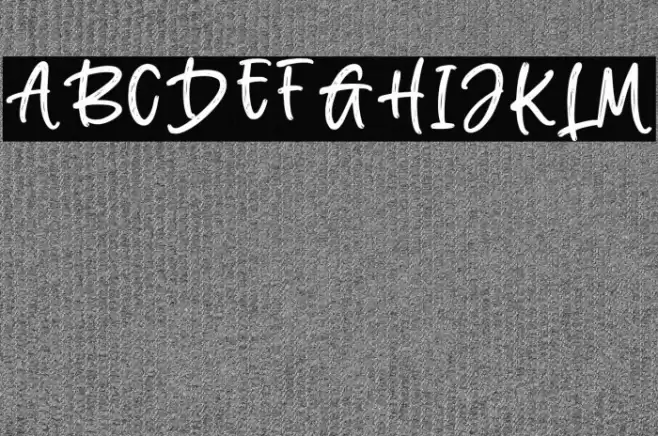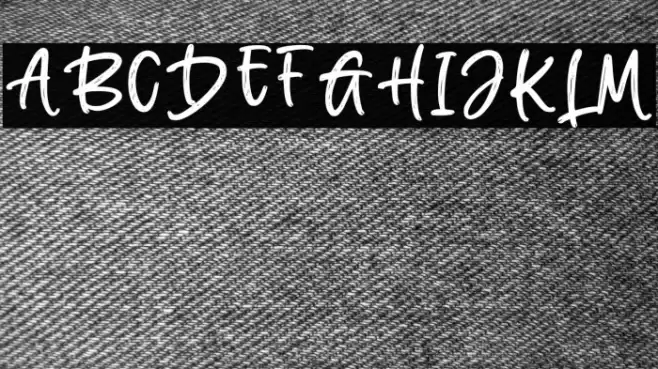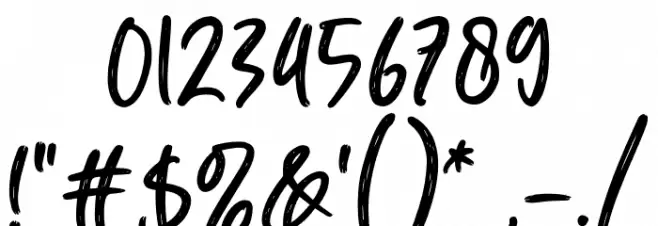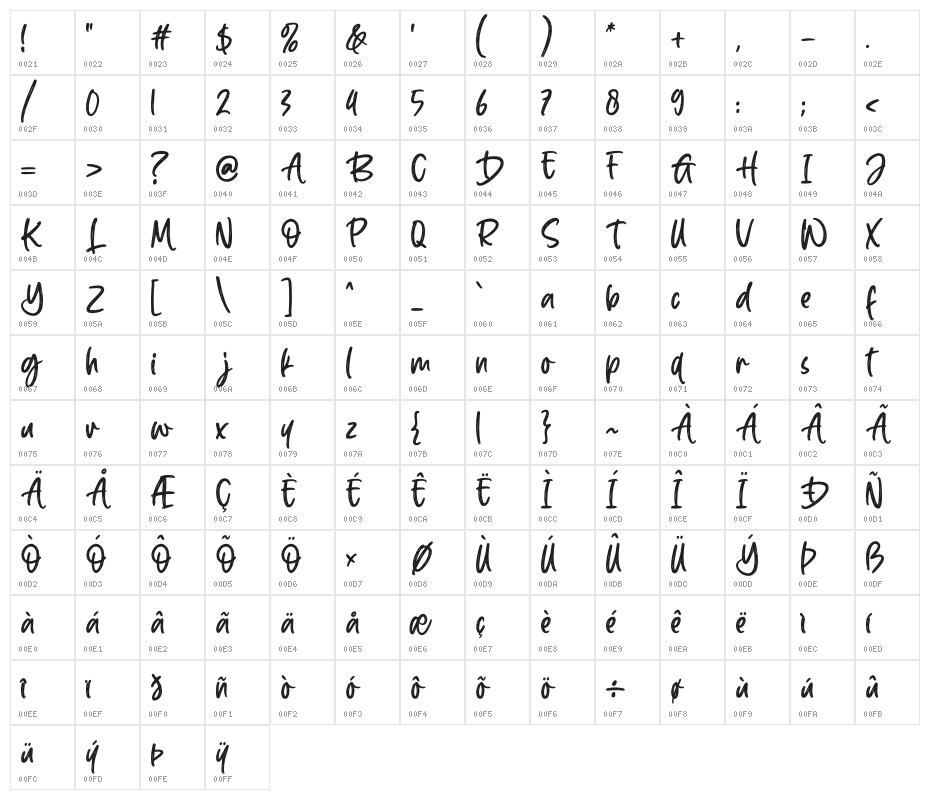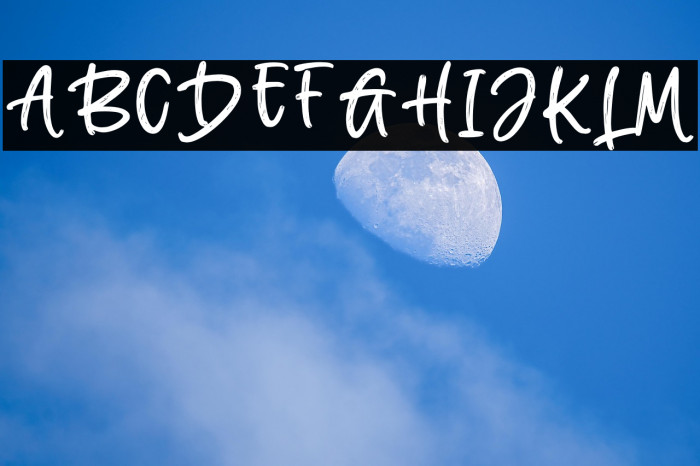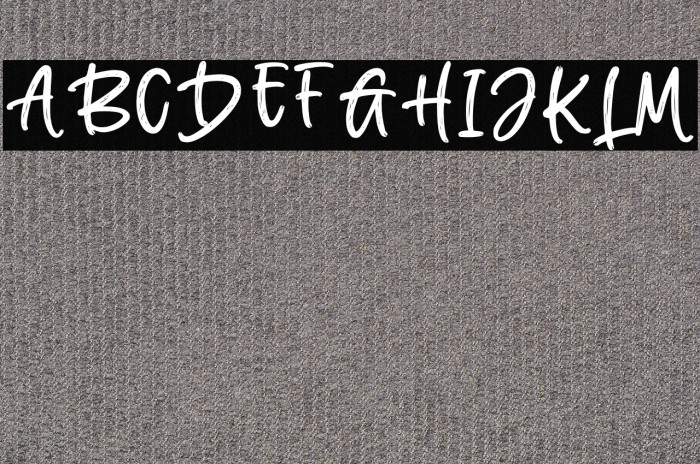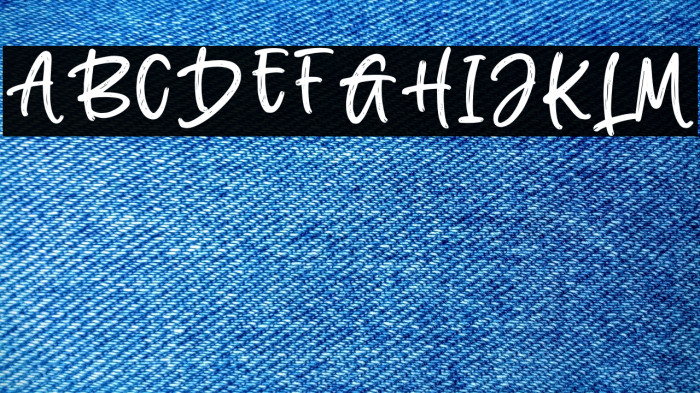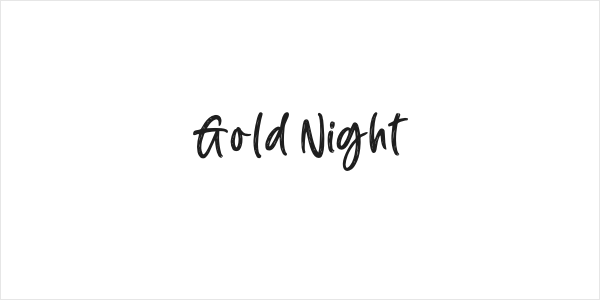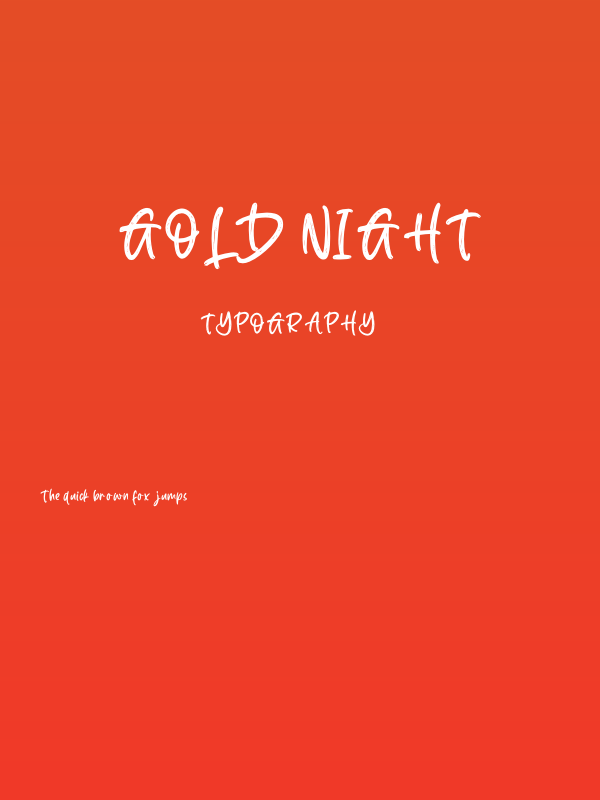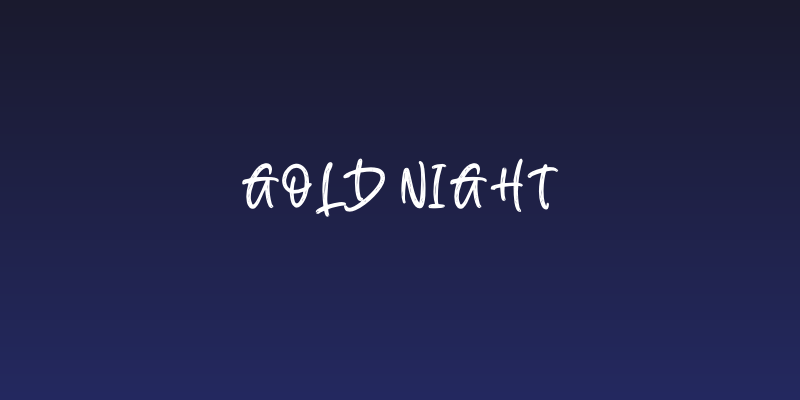
Gold Night Font
Gold Night Description
This font features a dynamic and energetic handwritten style, characterized by its bold and expressive strokes. The letters are slightly slanted, giving a sense of movement and fluidity. The uppercase letters are bold and prominent, while the lowercase letters maintain a consistent flow, enhancing readability. The numbers and special characters are crafted with the same lively touch, ensuring a cohesive look across all elements. This font's playful yet sophisticated appearance makes it suitable for a variety of creative projects.
A bold, handwritten font with dynamic and expressive strokes from Uncategorized fonts.
- Proposed Projects: Ideal for branding, social media graphics, invitations, and creative posters.